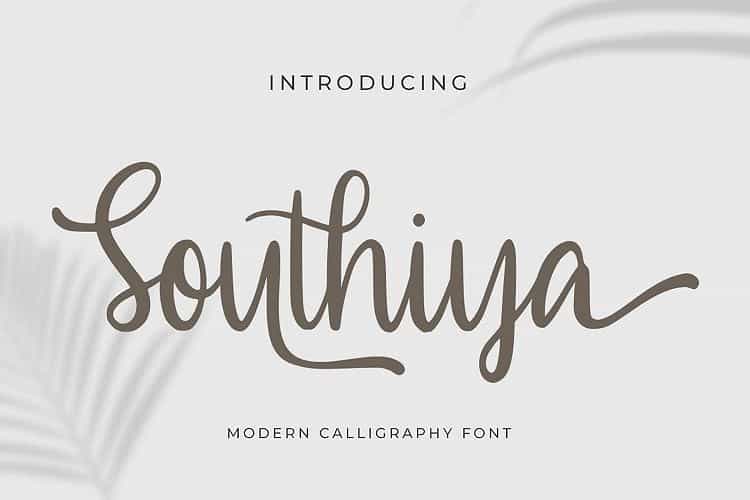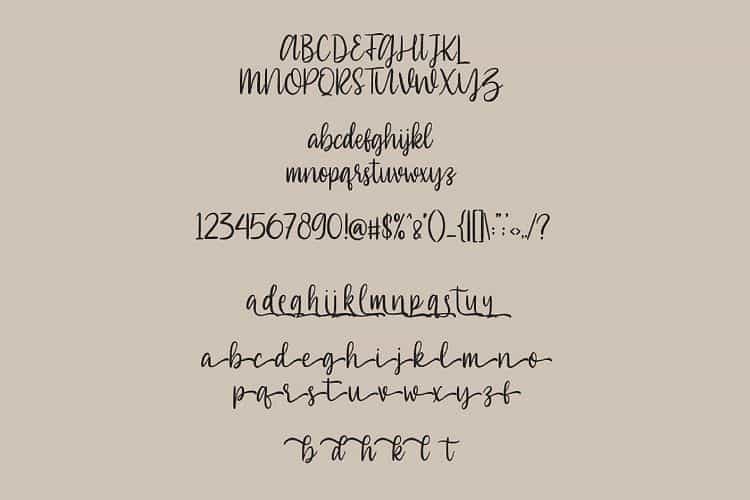
Discover Southiya Script Font, part of the Calligraphy collection—a versatile and unique font perfect for adding a personal touch to your projects. Download it for free and enjoy crafting designs with style, from invitations to social media posts. This font is available exclusively for personal use, giving you the freedom to create without limits. Unlock your creativity with Southiya Script Font today!
Introducing Southiya Font. This one is intended and posted by Stringlabscreative. This Font can be used for any variety of purposes, such as: Wedding Photography, Feminine Wedding Style, Beauty Style Packaging Material, Logo Type, Branding, T shirt Design, Website and Blog Design, Headline Magazine Design, Brochures Design and lastly for Personal use.